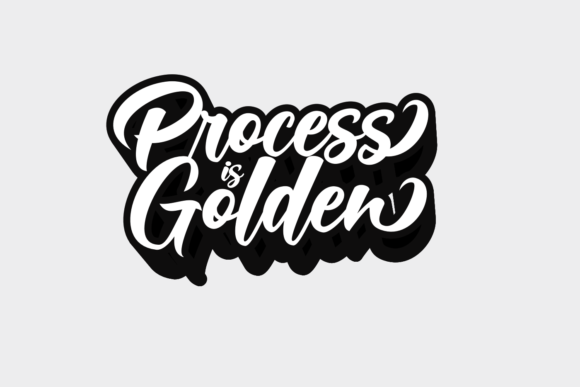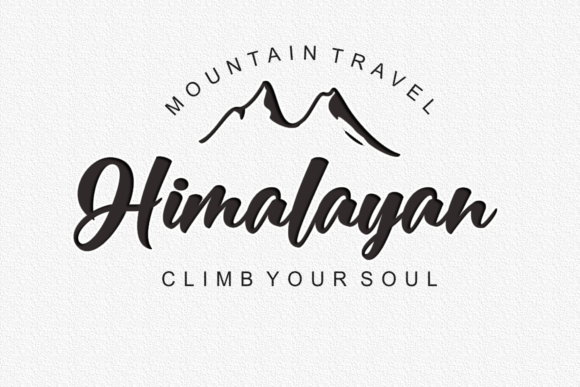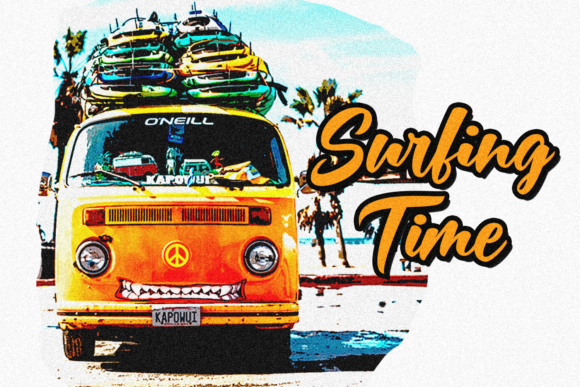
Introduction to Rajawali Font
Have you ever found yourself stuck in a design rut, craving a font that exudes a sense of nostalgia and sophistication? You’re not alone. Many designers struggle to find the perfect font to elevate their creative projects, but what if you stumbled upon one that not only captures the essence of a bygone era but also screams confidence and dynamism? Welcome to the world of Rajawali Font, a gorgeous and bold handwritten font that’s about to become your new design BFF.
With its PUA encoded features, accessing all glyphs and swashes is a breeze, making it the ultimate design resource for your next high-quality project. Imagine adding a touch of elegance to your logotype or giving your headlines a stylish twist – Rajawali Font is the perfect tool to achieve just that. Whether you’re working on a free download or a premium design, this font is sure to bring a unique touch to your work.
Key Features of Rajawali Font
- High-quality design: This font is designed with precision and attention to detail, making it perfect for creative projects.
- Unique design elements: The Rajawali Font features a unique blend of modern and traditional elements, making it a great addition to any creative project.
Honest Review: Rajawali Font
As a designer, I’m always on the lookout for high-quality fonts that can elevate my creative projects. Recently, I stumbled upon the Rajawali Font, and I’m excited to share my honest review.
What works well: ✨ The Rajawali Font offers a beautiful, elegant design that’s perfect for various creative projects. The font is highly customizable, and its transparent background makes it easy to use as a design resource. I appreciate that it’s available for free download, which is a huge plus for designers like me who are always on the lookout for affordable design resources.
- Customizable and easy to use
- Transparent background for easy design integration
However, there are a few limitations: ⚠️ The font only comes in a limited number of styles, which may not be ideal for designers who need a wider range of options. Additionally, the font may not be suitable for very large or complex designs, as it can be a bit heavy.
Overall, I’m impressed with the Rajawali Font, and I think it’s a great addition to any designer’s toolkit. While it may have some limitations, its high-quality design and ease of use make it a valuable resource for creative projects.
Rajawali Font
The Rajawali Font is a high-quality, free download design resource ideal for creative projects requiring a unique and elegant touch. With its transparent background, this font is perfect for various design applications.
Tips for Getting the Most Out of Rajawali Font
To get the most out of the Rajawali Font, use it in combination with other design elements, experiment with different font sizes and colors, and apply it to various design applications. This will help you unlock its full potential and create unique and eye-catching designs.
The Rajawali Font is perfect for various design projects, including wedding invitations, business cards, and social media graphics. Its elegant and unique design makes it an ideal choice for creative professionals and designers looking to add a touch of sophistication to their work.